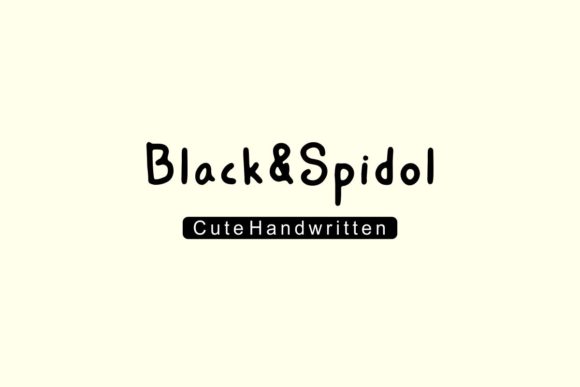
The Sweet Spot: Discovering the Charm of Black & Spidol Font
I’ll never forget the moment I stumbled upon the perfect font for a project. I was working late, surrounded by design drafts and cups of cold coffee, when I realized I needed something fresh and friendly. That’s when I met Black & Spidol, a handwritten font that instantly captured my heart. Its natural, unique style seemed to fit every design I had in mind, and I knew right then that I had to share it with fellow designers and creatives.
So, what makes Black & Spidol so special? Let’s dive into the details.
- ✨ Sweet and Friendly Vibe: Black & Spidol exudes warmth and approachability, making it perfect for designs that need a personal touch.
- ✅ Versatility: From crafting and DIY projects to digital designs and branding, this font adapts seamlessly.
- 💡 Unique Style: Its natural, handwritten look sets it apart from more generic fonts, adding character to any design.
While Black & Spidol is incredibly versatile, there are a few things to keep in mind:
- 🤔 Legibility at Small Sizes: Like many handwritten fonts, Black & Spidol can get a bit fuzzy at very small sizes. It’s best used at larger sizes where its charm can shine.
- ⚠️ Overuse: While it’s tempting to use Black & Spidol everywhere, remember that moderation is key. Balance it with other fonts to keep your design fresh.
Exploring Alternatives: Similar Fonts to Black & Spidol
While Black & Spidol is unique, there are other fonts that share a similar vibe. Here are a few alternatives:
- Lobster: A more formal, yet elegant script font perfect for headings and titles.
- Pacifico: A beautiful, modern script font great for designs needing a touch of sophistication.
- Great Vibes: A fun, adventurous script font ideal for creative and youthful designs.
- Carolyna Pro: A stylish, elegant script font suitable for more refined and professional designs.
The Story Behind Black & Spidol: A Designer’s Inspiration
Though the origins of Black & Spidol are shrouded in mystery, it’s easy to imagine a designer, sitting with a notebook and pen, trying to capture the essence of friendly and approachable typography. The result is a font that feels both personal and versatile, perfect for a wide range of creative projects.
| Font Name | Black&Spidol Font |
| Author | Pidco.art |
Q: Is Black & Spidol suitable for body text?
A: While Black & Spidol is beautiful, it’s best used for headings and short paragraphs due to its unique style. For longer body text, consider a more traditional font for readability.
Q: Does Black & Spidol support OpenType features?
A: Yes, Black & Spidol comes with OpenType features, including stylistic alternates and glyphs, allowing for a high degree of customization.